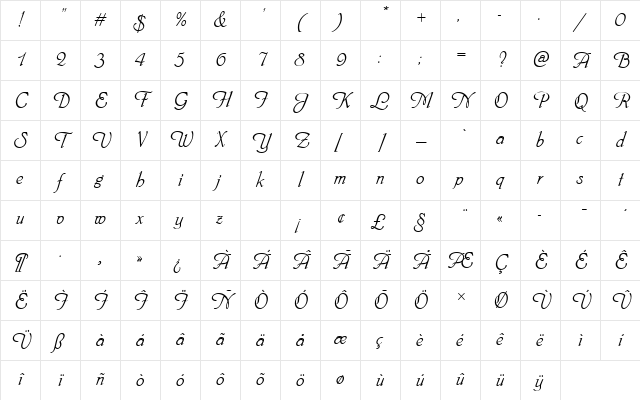
PhyllisDRo1 Regular
Design Context for PhyllisDRo1
PhyllisDRo1 is a composed and adaptable typeface that performs quietly and consistently across a wide range of design contexts.